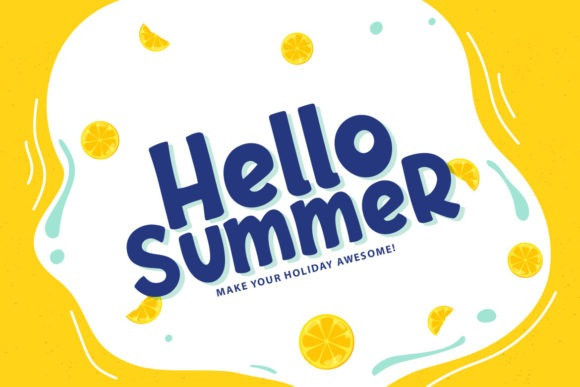
Chicken Broth Display Font
Introduce Chicken Broth Font, is a fun and friendly display font. Whether you use it for cartoon related designs, children games or just any creation that requires a lovely touch, this font will be an amazing choice.